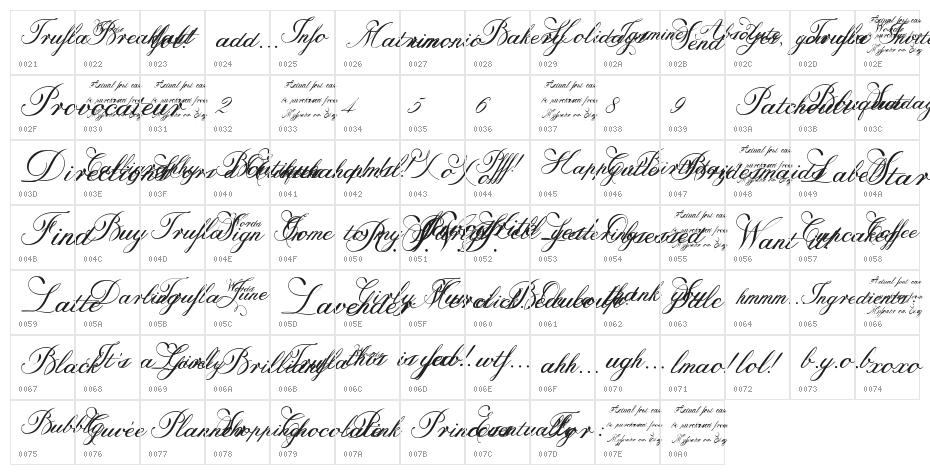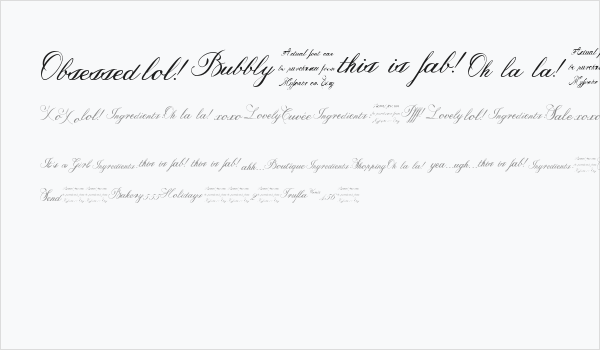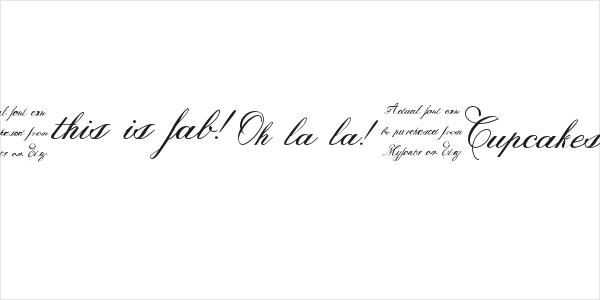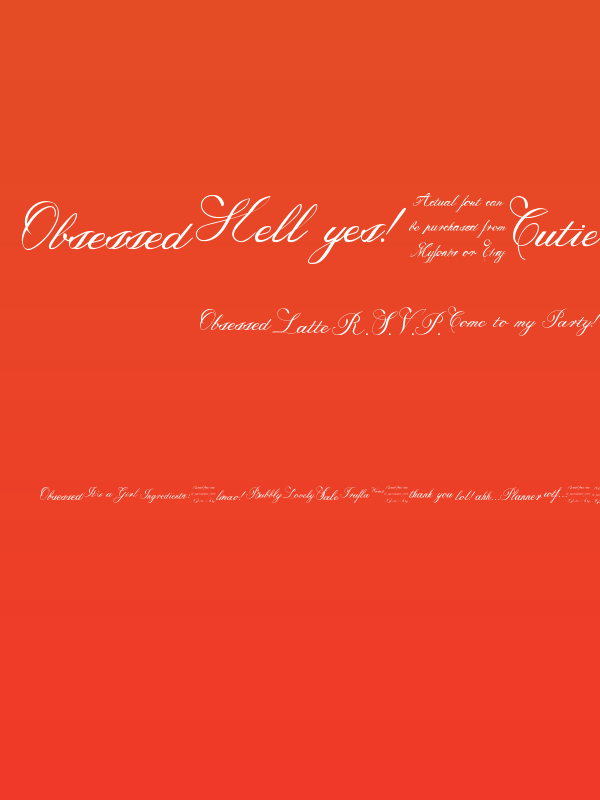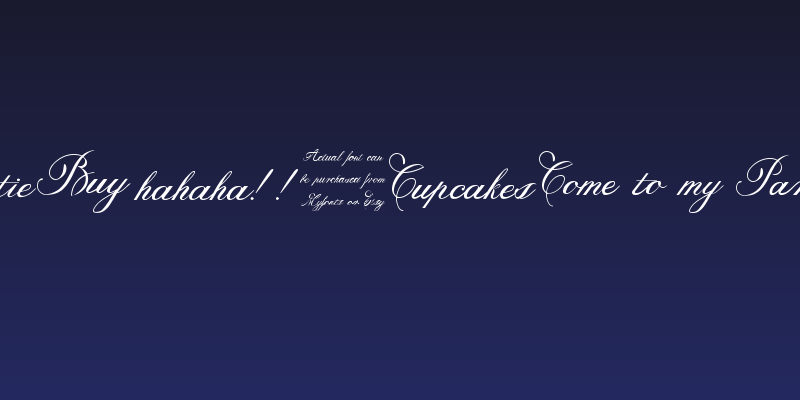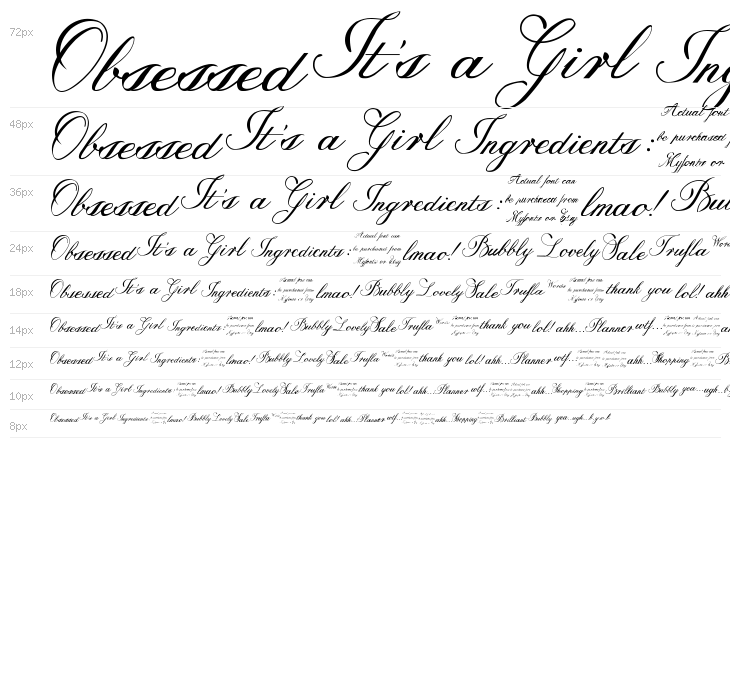
Trufla Words Font
Trufla Words Description
This elegant script font features a flowing, cursive style with intricate details and a refined aesthetic. The characters are connected, creating a seamless and sophisticated look. The font has a delicate and graceful appearance, making it ideal for formal invitations, elegant branding, and decorative purposes. The strokes are smooth and fluid, with a slight variation in thickness that adds to its charm. This font exudes a sense of luxury and class, perfect for projects that require a touch of elegance and sophistication.
| Use Case | Invitations, Branding, Decorative |
| Proposed Projects | Ideal for wedding invitations, luxury branding, elegant stationery, and decorative designs. |